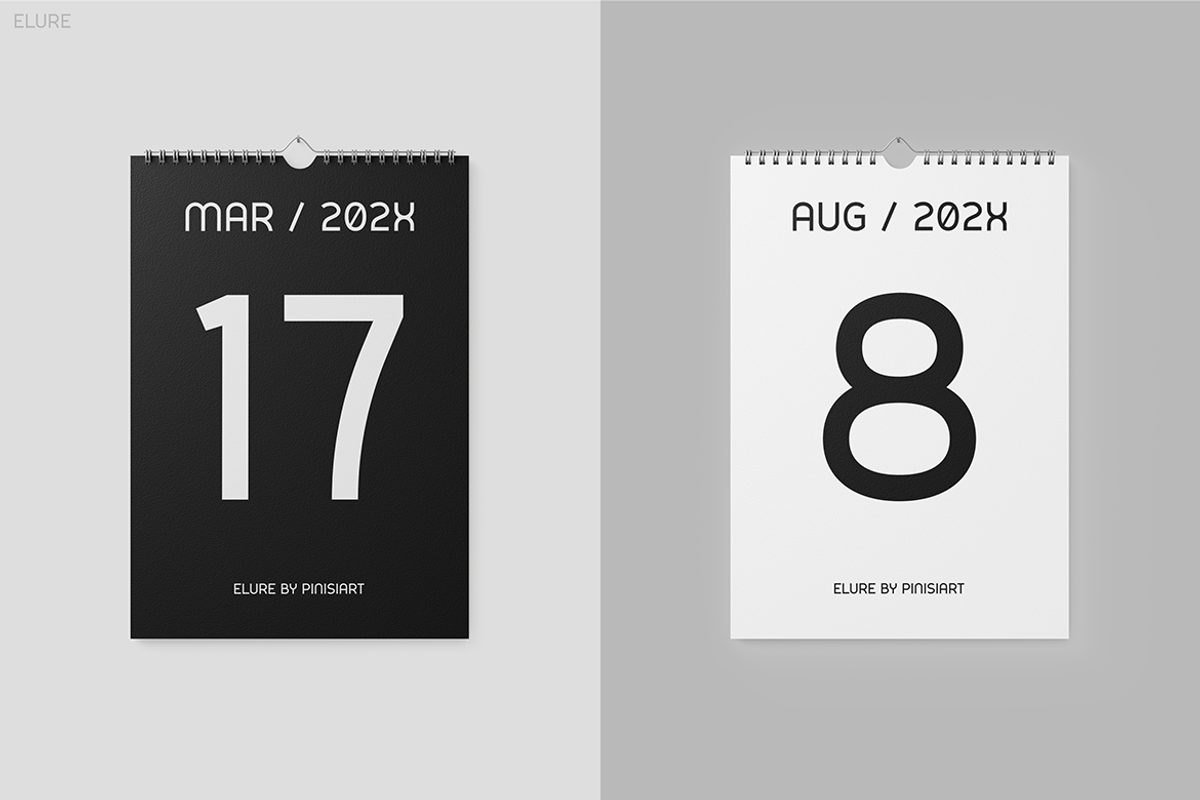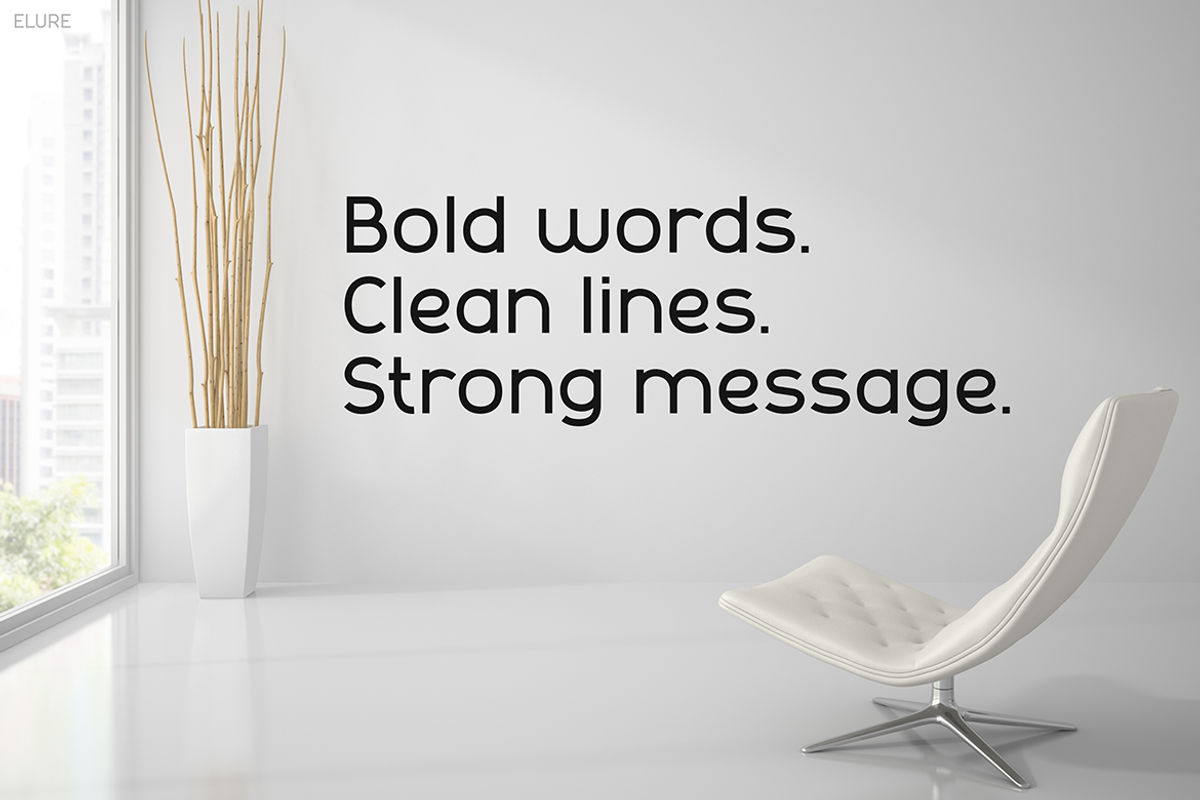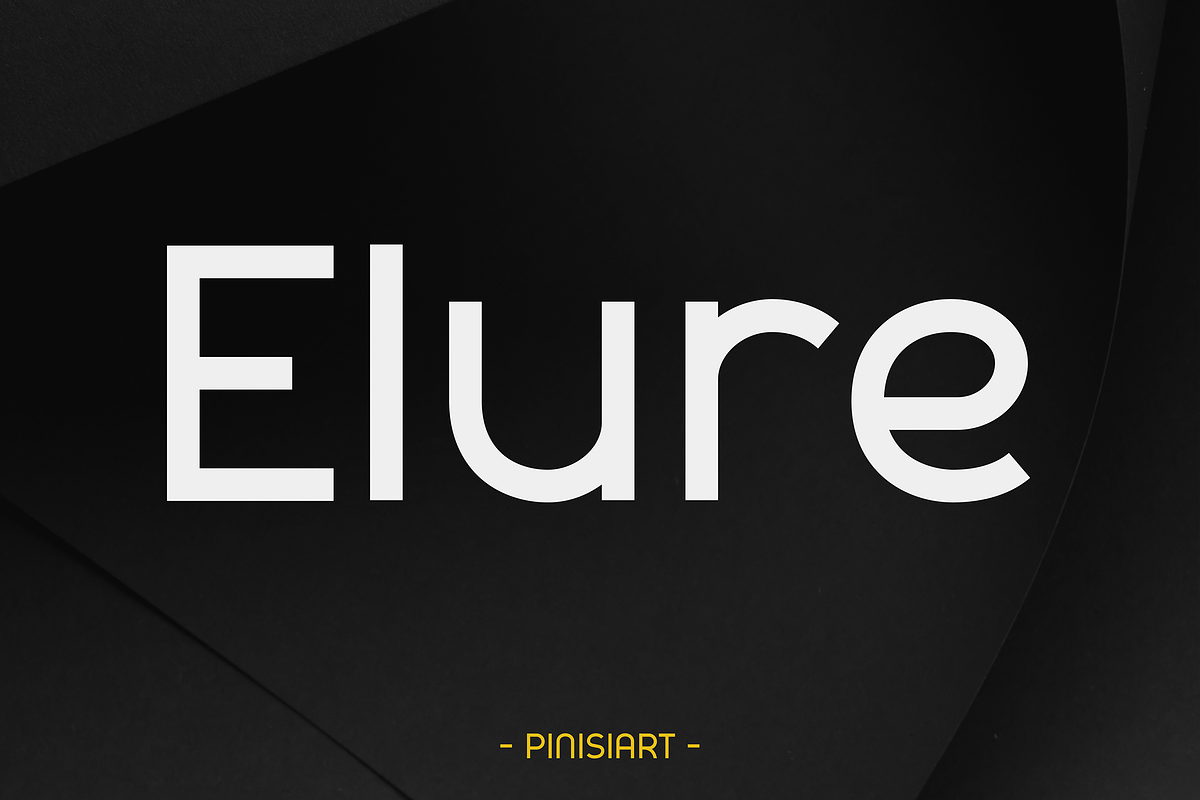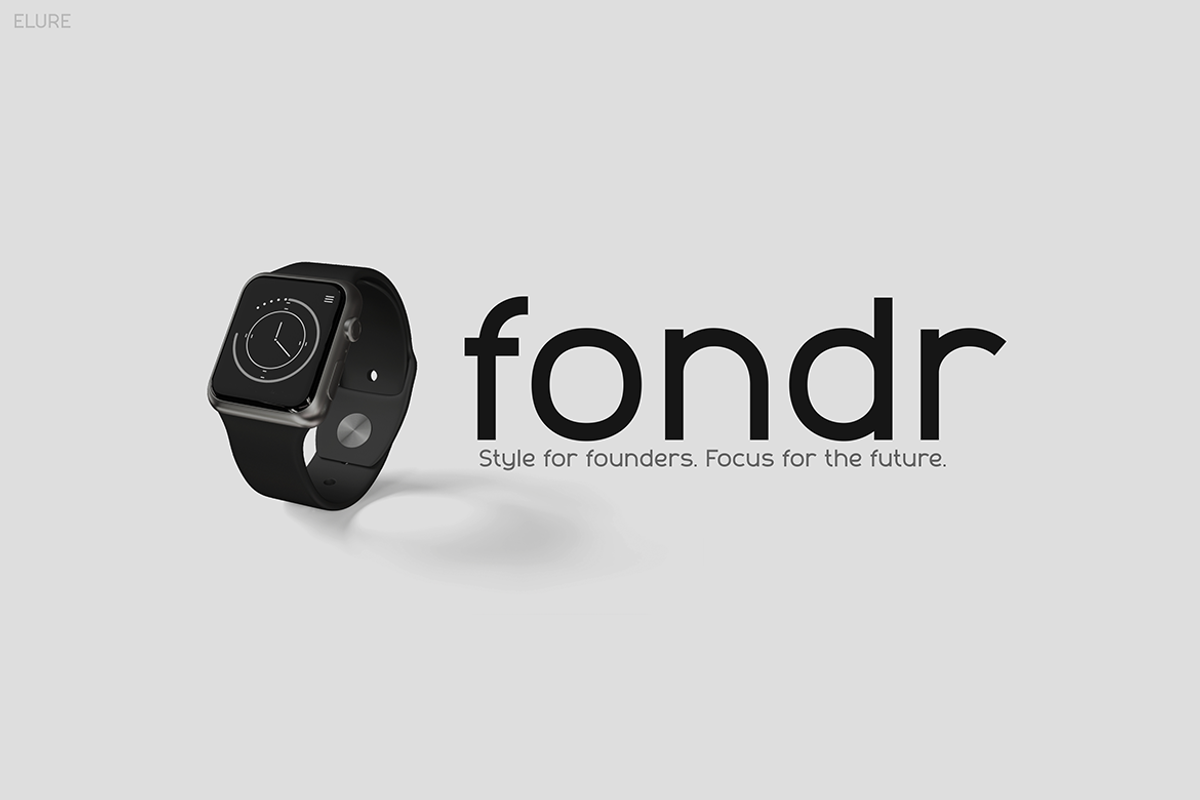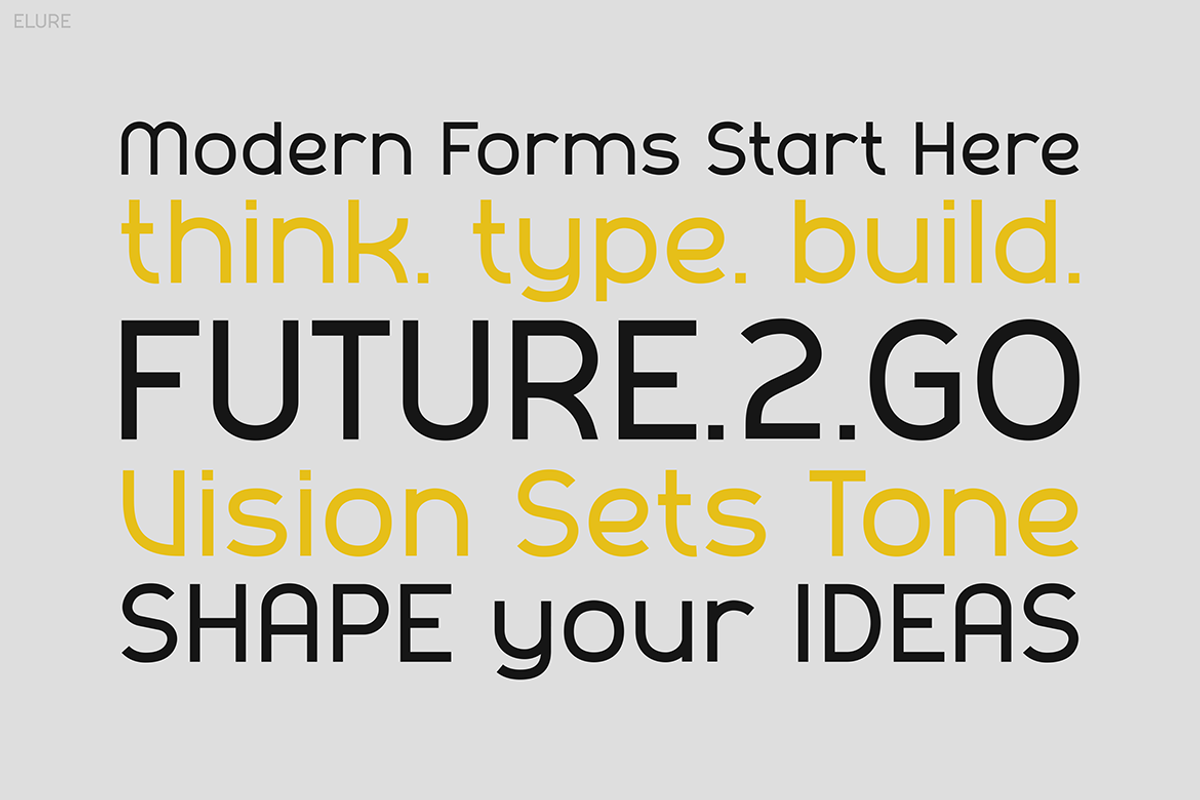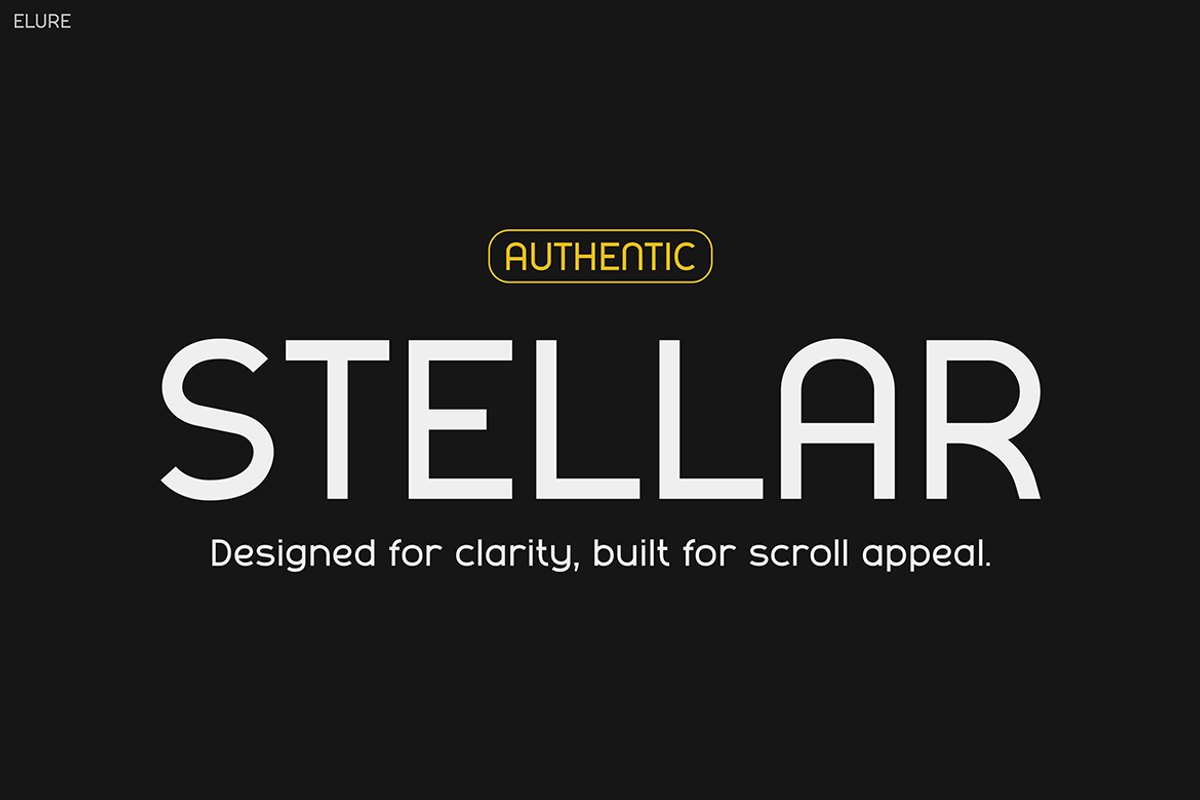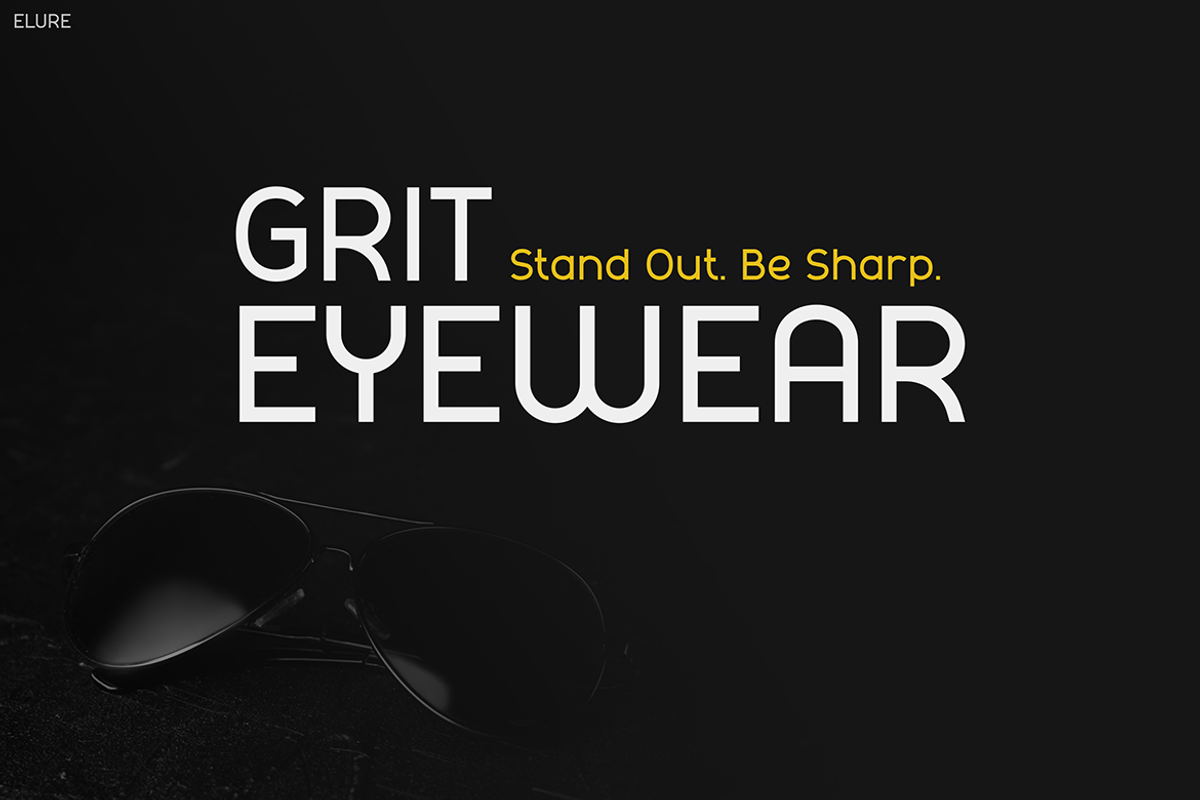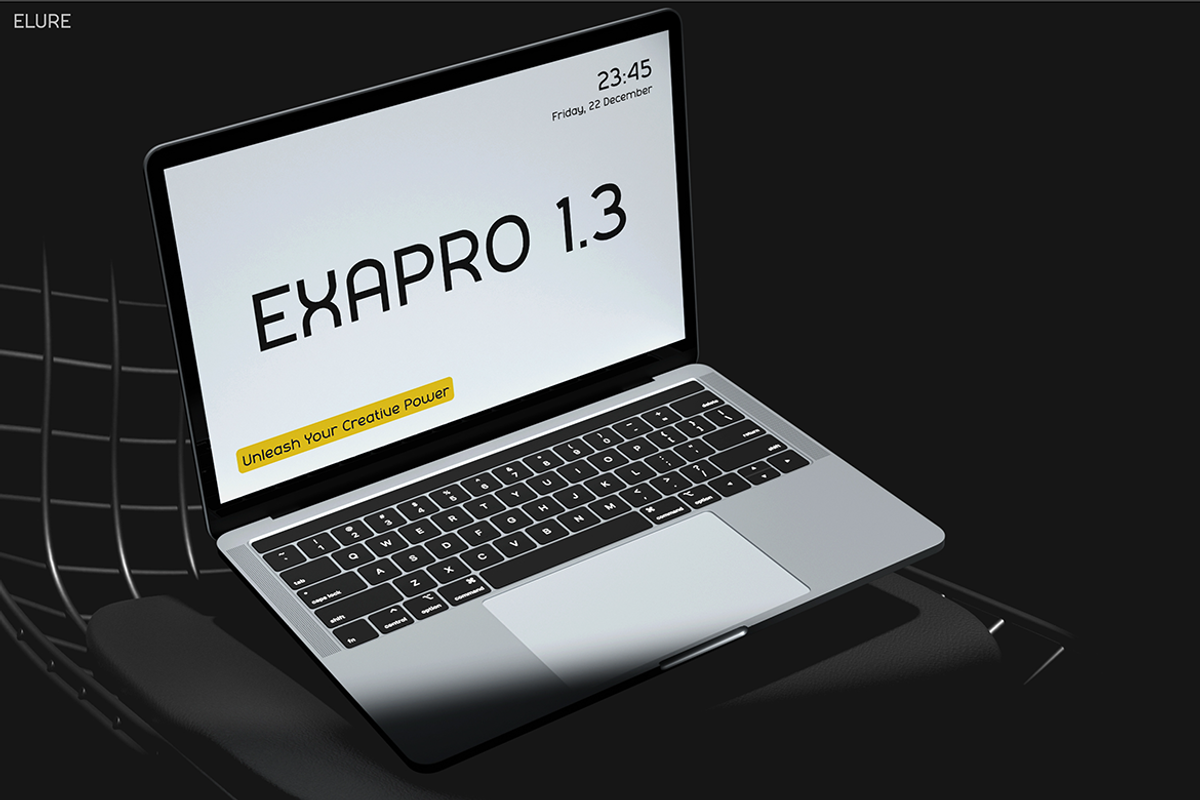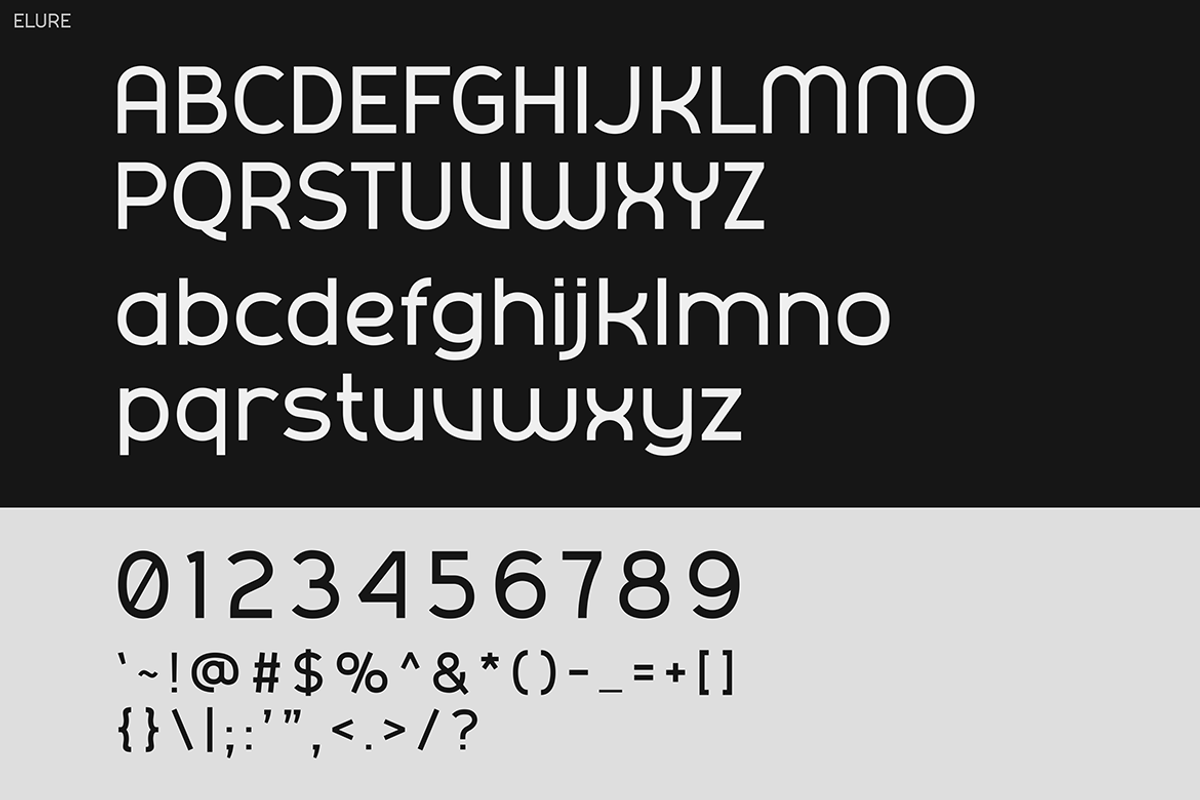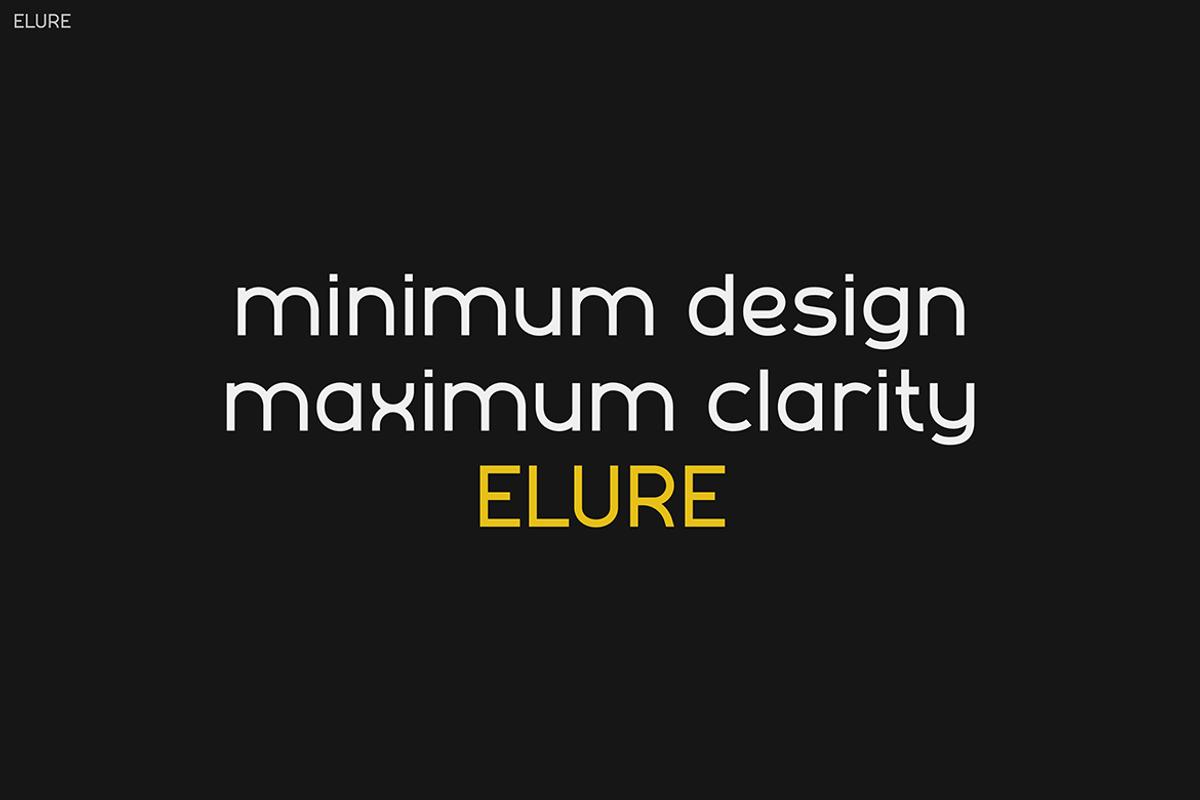
ELURE
Instagram Font ELURE: A Bold Statement in Digital Design Instagram Font ELURE is the perfect blend of clarity and personality. It features smooth curves, clean lines, and balanced spacing. Therefore, it instantly grabs attention in both digital and print media.
What makes this font unique is its futuristic yet friendly tone. Each letterform is designed with precision, but with soft edges that make it approachable. As a result, it offers both visual appeal and excellent readability.